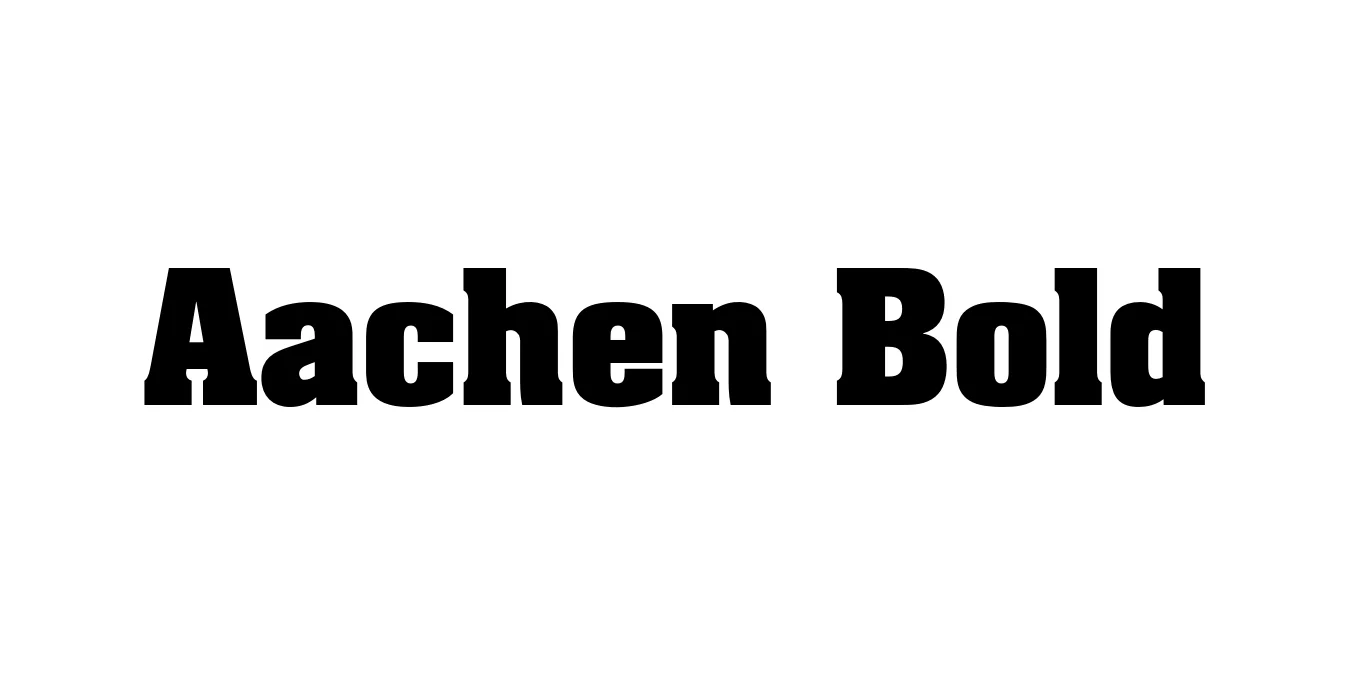
Aachen Bold
Designed by Colin Brignall and Alan Meeks
| Category | Slab Serif |
| Designer | Colin Brignall and Alan Meeks |
| Similar Fonts | Rockwell, City, Playbill, Stymie Bold |
Aachen Bold was originally designed in 1969 by Colin Brignall for the Letraset library, with Alan Meeks later expanding the family weights. It is a quintessential heavy slab serif typeface that exudes strength, stability, and a distinct industrial character. Its thick strokes and blocky serifs make it highly legible even from a distance, which contributed to its rapid adoption in the advertising and publishing worlds during the late 20th century.
The font is most notably associated with sports branding and collegiate apparel due to its powerful, athletic aesthetic. Over the decades, it has become a staple for designers looking to create high-impact headlines, posters, and logos that require a sense of authority and permanence. Despite its age, Aachen Bold remains a popular choice in modern graphic design for its timeless, bold presence and commanding visual weight.
Aachen Bold Best Uses
Ideal for jerseys, team logos, and collegiate-style apparel.
Perfect for high-impact editorial titles and newspaper headers.
Highly effective for event posters and promotional materials requiring high visibility.
A strong choice for industrial, masculine, or heritage-based brand identities.